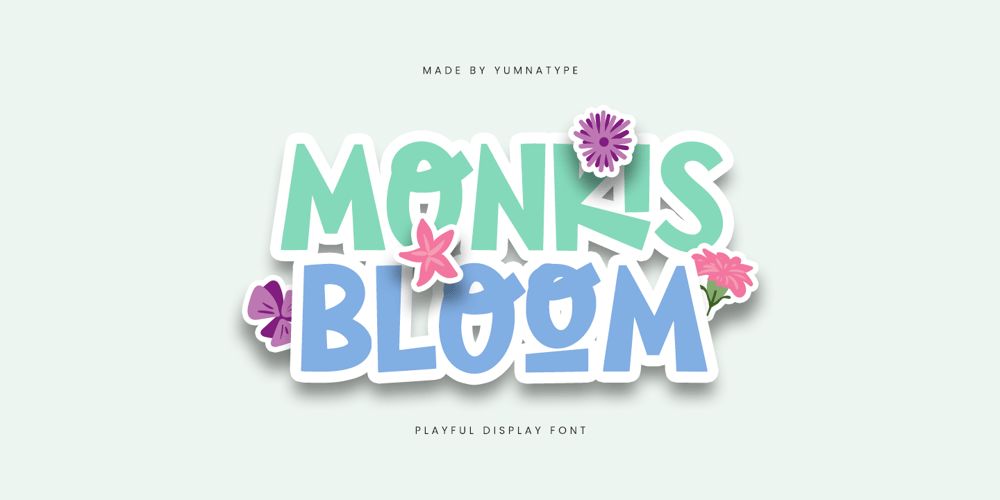
Monkis Bloom Font Family was designed by Donis Miftahudin and published by Yumna Type. Monkis Bloom contains 1 styles and family package options. Monkis Bloom is a charming display font that bursts with playful energy and personality. With its playful style, Monkis Bloom invites viewers to embrace their playful side and let their creativity bloom. Each letter is meticulously crafted with soft curves and friendly lines, creating a sense of warmth that is sure to captivate your audience.The thick weight of Monkis Bloom adds to its bold presence and ensures that your message is conveyed with clarity and impact. In addition, enjoy the features here.Features: Ligatures Multilingual Supports PUA Encoded Numerals and Punctuations Monkis Bloom fits in headlines, logos, posters, flyers, branding materials, greeting cards, print media, editorial layouts, and many more designs. Find out more ways to use this font by taking a look at the font preview.Thanks for purchasing our fonts. Hopefully, you have a great time using our font. Feel free to contact us anytime for further information or when you have trouble with the font. Thanks a lot and happy designing.